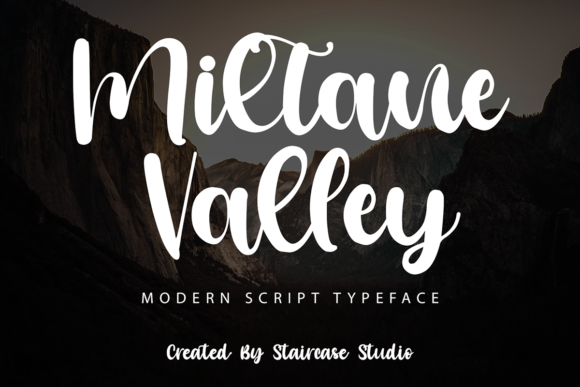
Miltane Valley Font
Unleash the allure of handwritten elegance with Miltane Valley, an enchanting script font that breathes life into your creative designs. Each letter, crafted with meticulous attention to detail, carries the charm of a bygone era, promising to leave an unforgettable impression on your audience.
Step into a realm of timeless beauty, where the delicate strokes of Miltane Valley dance across your screen, captivating hearts and minds alike. Its intricate flourishes and graceful curves evoke a sense of nostalgia, adding a touch of classic sophistication to any project.
Transport yourself to a world of imagination, where Miltane Valley serves as your loyal companion, transforming ordinary words into captivating stories. Let your creativity flow freely as you explore the endless possibilities this font offers, turning your artistic visions into tangible masterpieces.
Indulge in the versatility of Miltane Valley, a font that adapts seamlessly to a myriad of design endeavors. Whether you're crafting stunning logos, branding designs, or eye-catching posters, Miltane Valley rises to the occasion, adding a touch of elegance and refinement to each creation.
Unleash your inner artist and embrace the beauty of Miltane Valley, a font that ignites passion and sparks imagination. Elevate your designs to new heights, leaving a lasting impact on your audience. With Miltane Valley by your side, the world of typography becomes your playground, where dreams take flight and creativity knows no bounds.